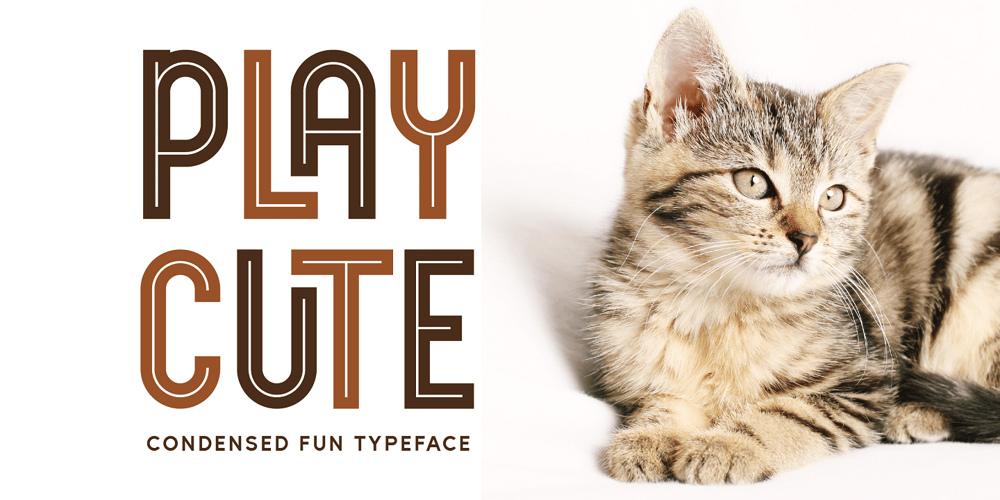
Playcute Font Family was designed by Patria Ari Wijonarko and published by Patria Ari. Playcute contains 1 styles and family package options. Introducing, Playcute – a fun kids display typeface with solid shapes but still fun. With uppercase and lowercase option, you can play different glyph shapes to get the best combination.With this font, you can use it for book and magazine cover, social media, headline, logo, digital products, and more. Thank You!